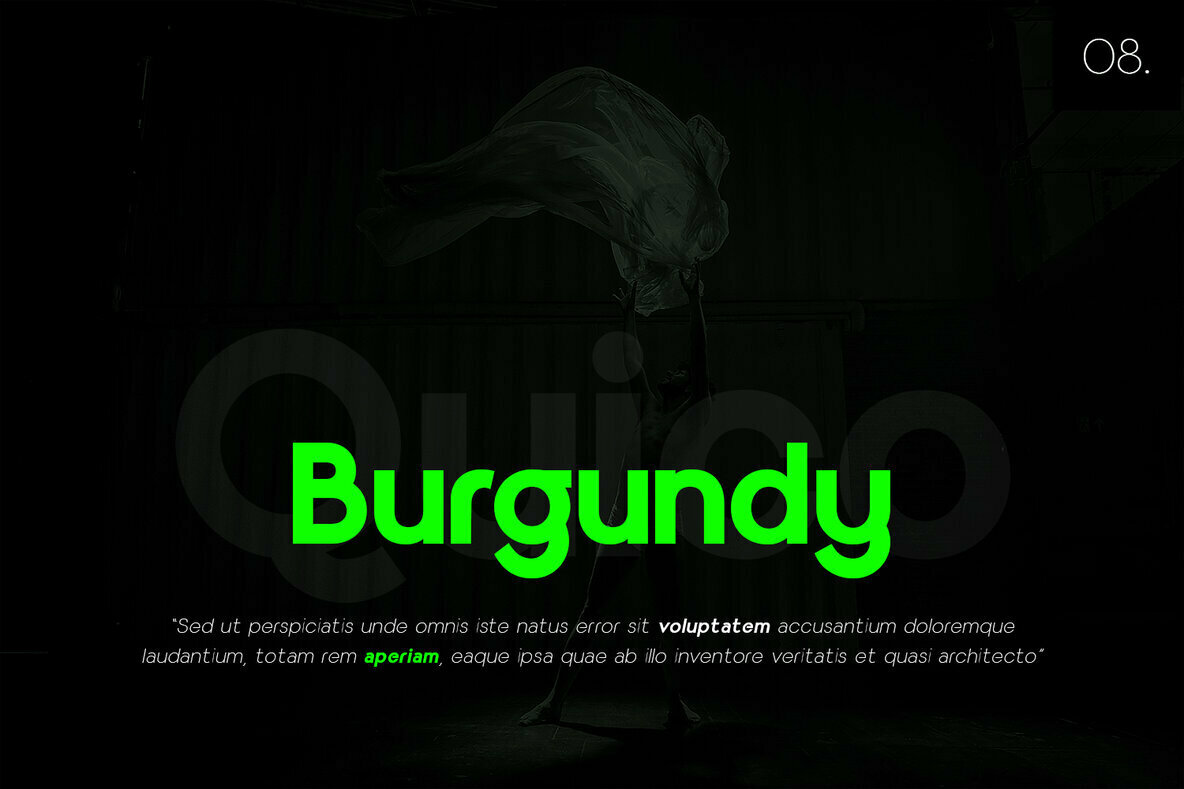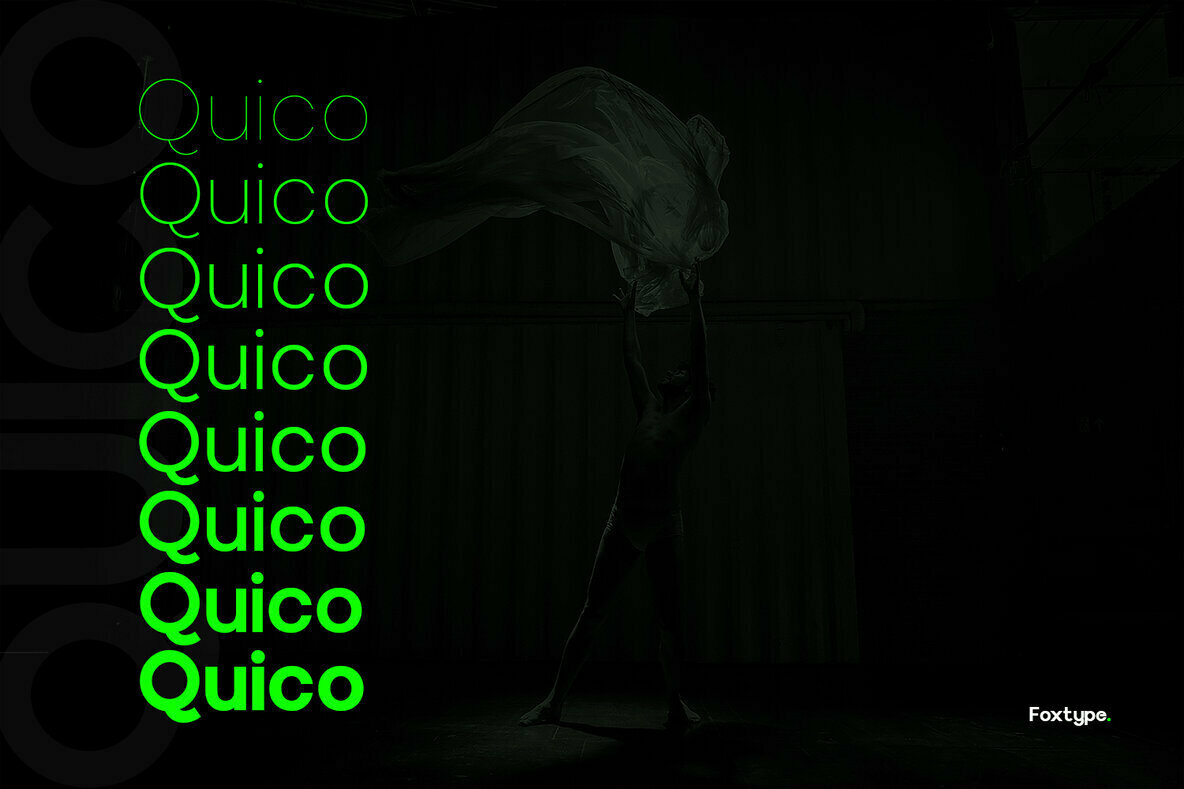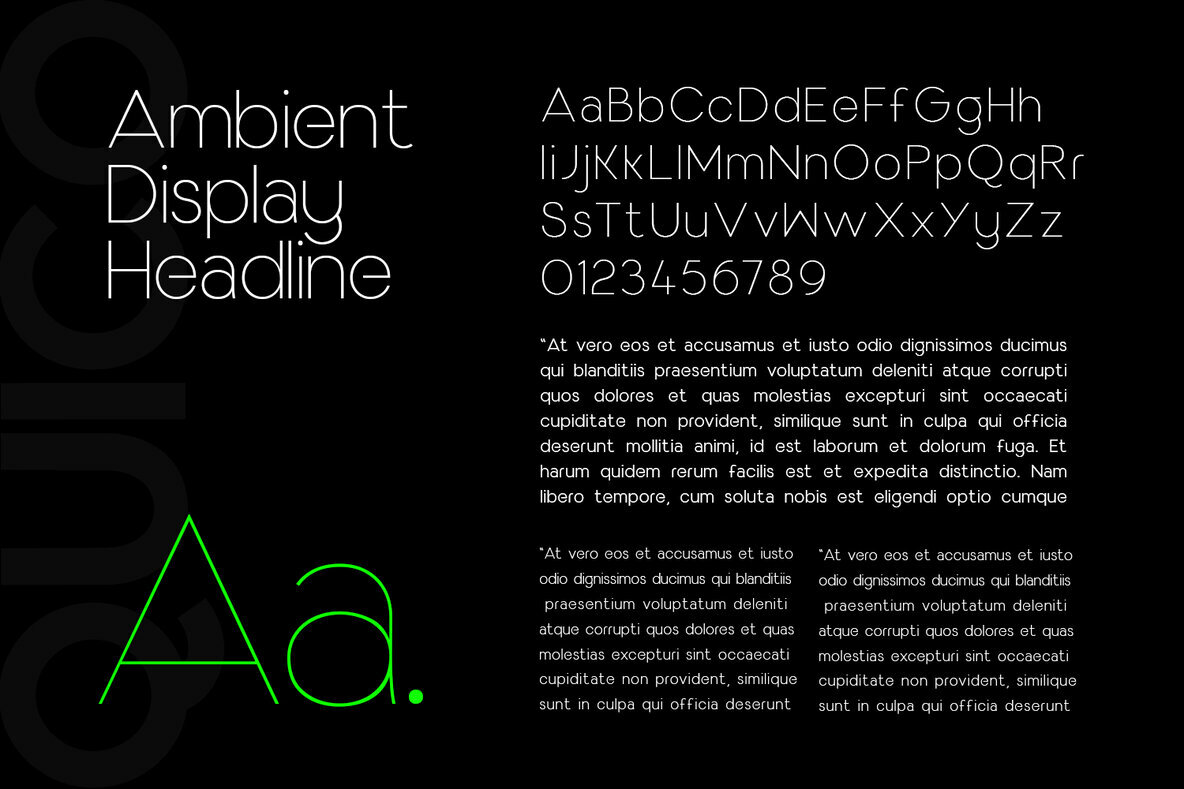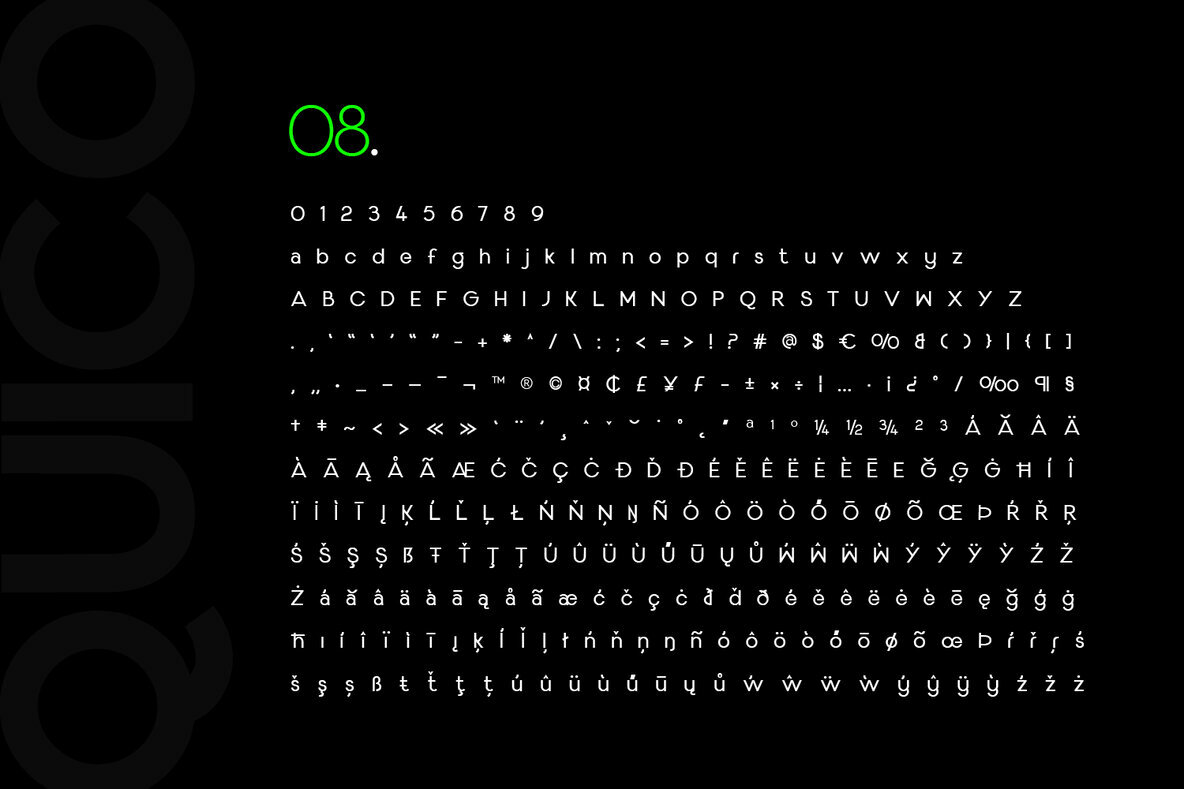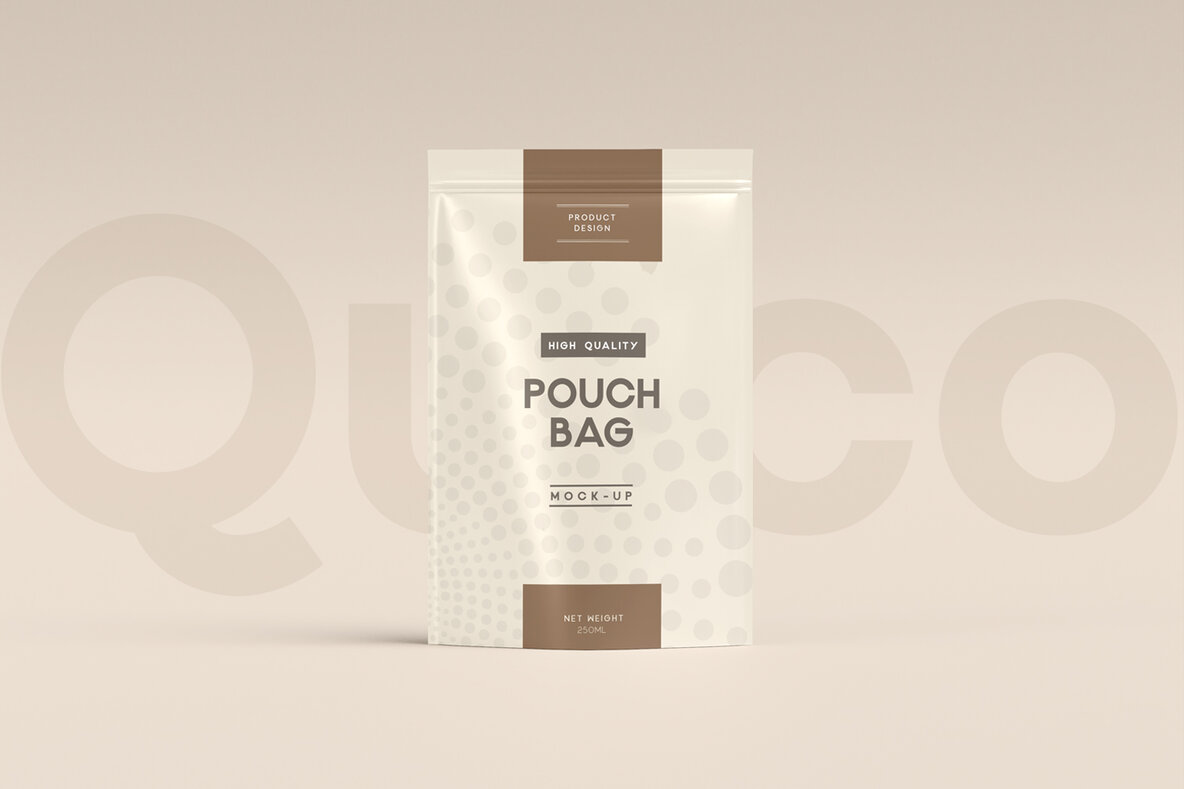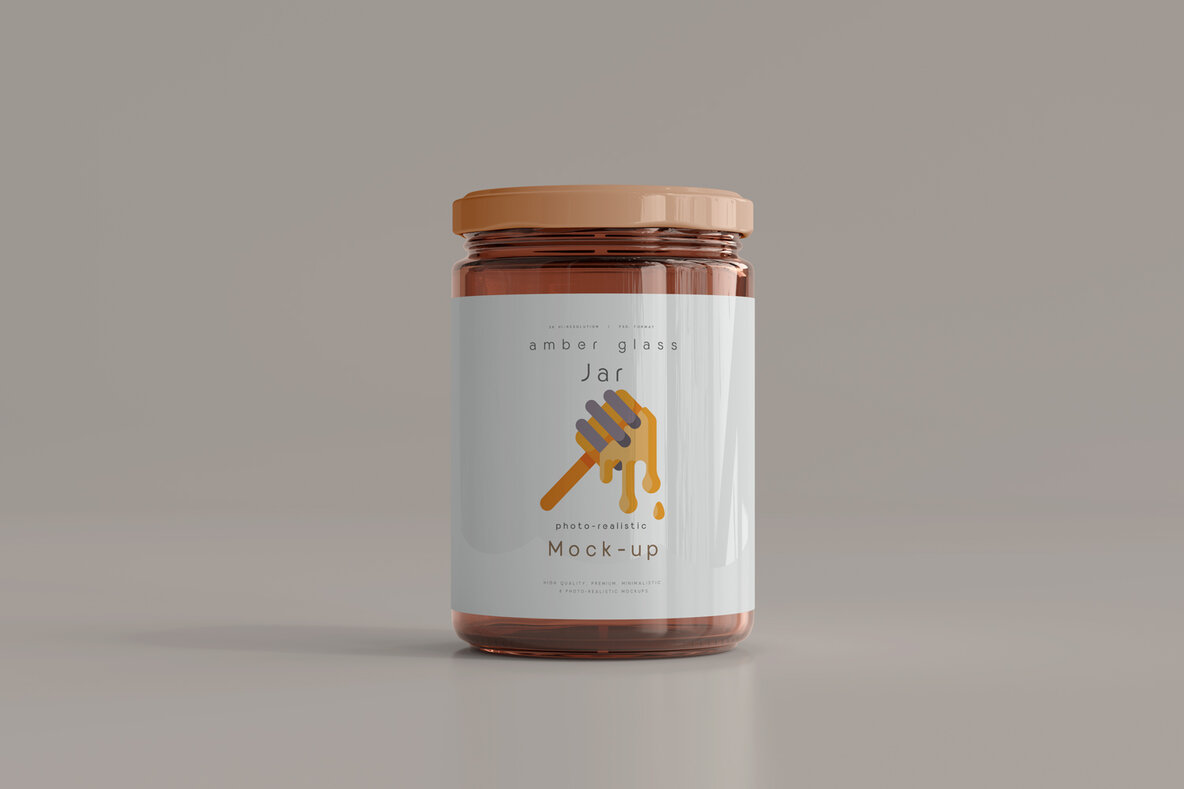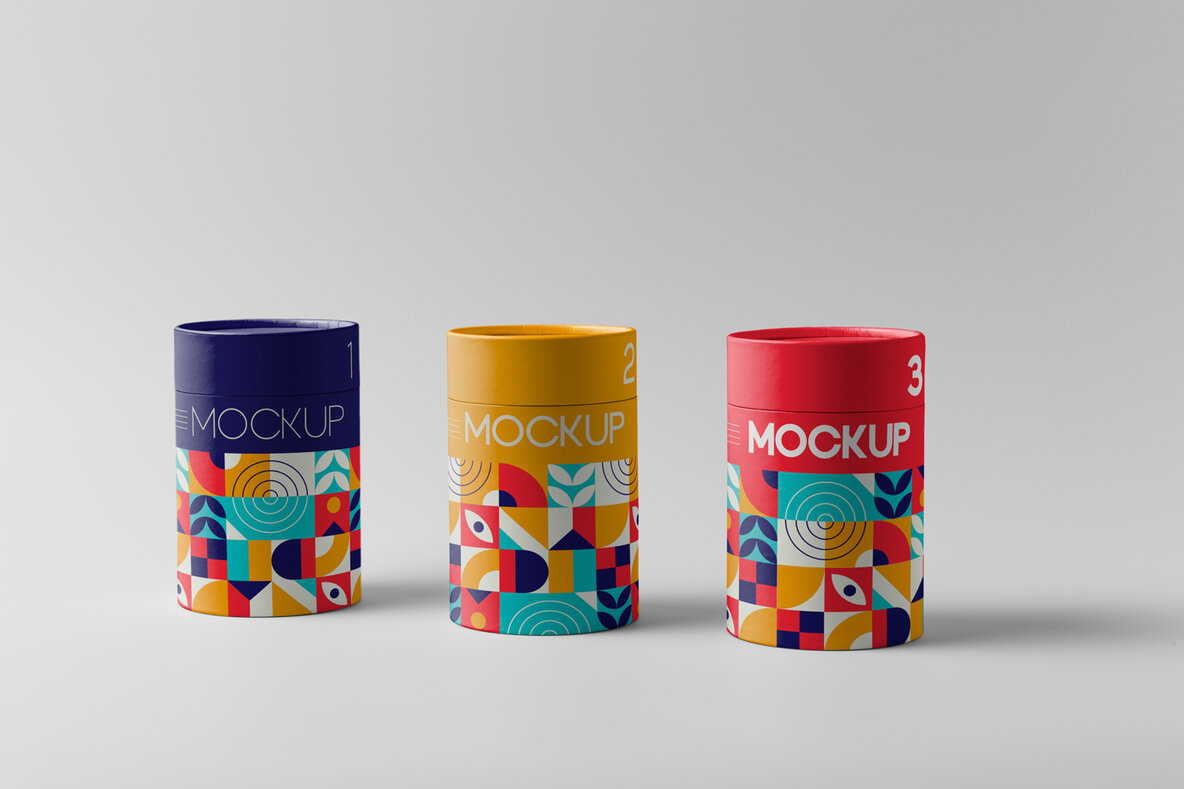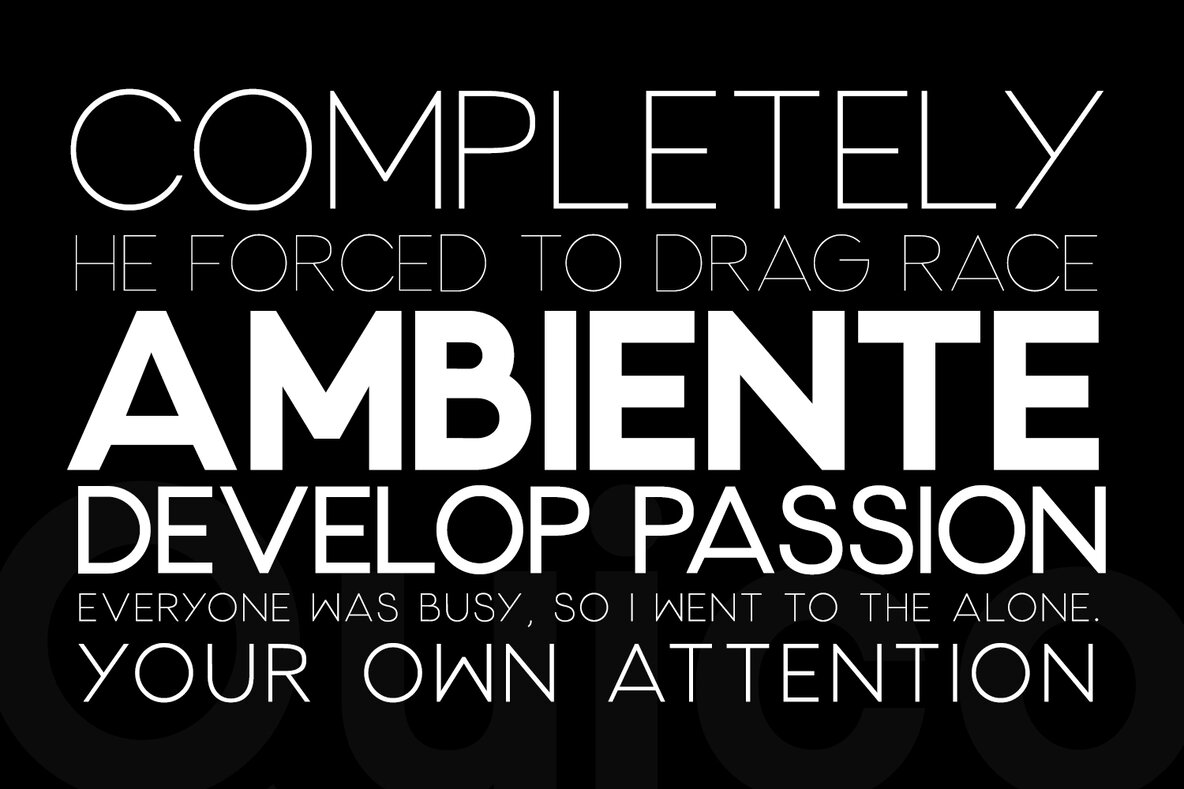
Quico Display: A Unique Modern Typeface
Quico Display is a distinctive font by FoxType Co, melding modern elegance with practical versatility. Designed to excel in both large and small sizes, this typeface is ideal for branding, logos, and headlines, as well as for adding a stylish touch to any image.
With strong capitals paired with smooth, open lowercase letters, Quico Display provides a clear reading experience across various applications. Its design balances a clean, minimalist style with an engaging warmth, maintaining versatility and readability.
• Eight weights included, ensuring flexibility in design.